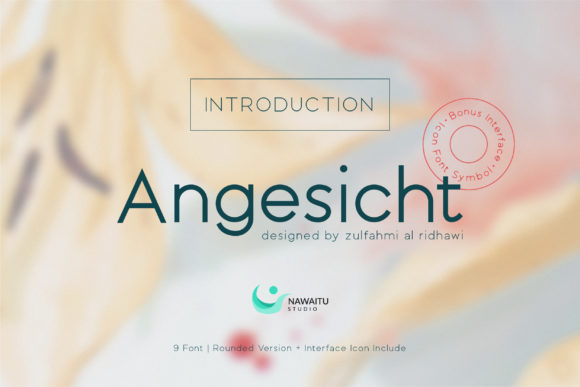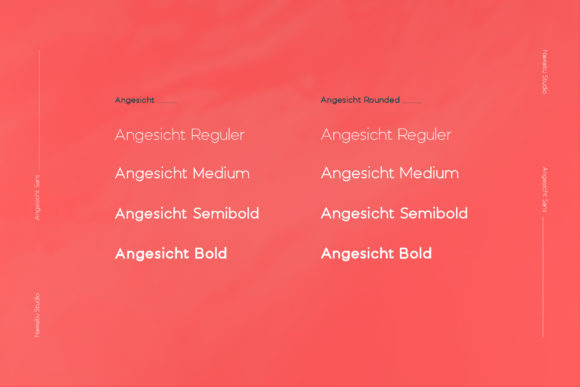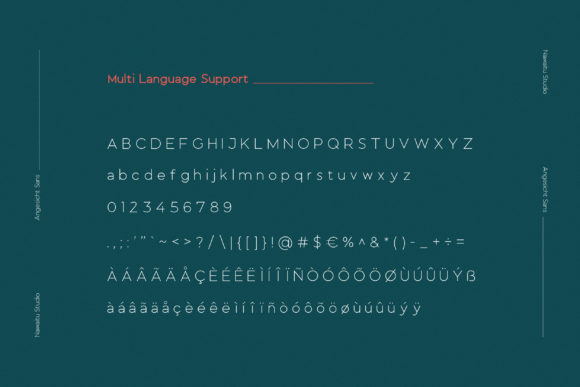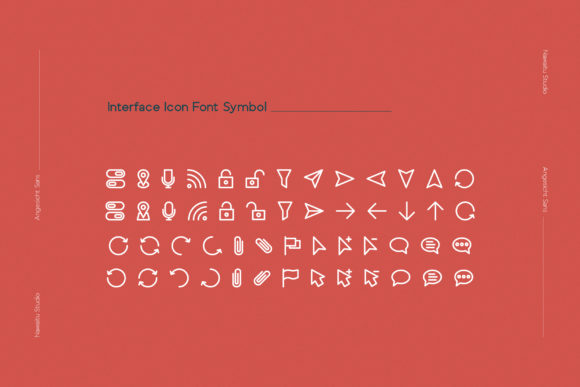
Angesicht Font: Modern Sans Serif for Inspiring Logo Design
About the Angesicht Font
Make a bold statement with Angesicht Font, a powerful and memorable font. Angesicht feels strong and modern, and comes in 9 carefully designed versions. Due to its versatility, this font family can be used in a wide range of design applications!
Angesicht excels in headlines, branding applications, and short-form text on posters or packaging. Its strong, modern feel commands attention, making it ideal for projects needing a bold visual statement. However, its weight and form are less suited to body text or long paragraphs; smaller sizes can appear heavy and reduce readability. Avoid using it in user interfaces where legibility is paramount.
A balanced pairing would be a clean sans-serif like Open Sans or Lato for body copy, allowing Angesicht to maintain visual dominance where appropriate. For a more sophisticated feel, consider pairing it with a delicate serif like Garamond or a script font such as Great Vibes for accents – depending on the desired level of formality.
Angesicht projects a confident and modern personality, suitable for brands aiming for a powerful and contemporary image. It’s a versatile tool for conveying strength and innovation, but careful consideration of its weight and form is key to successful application.